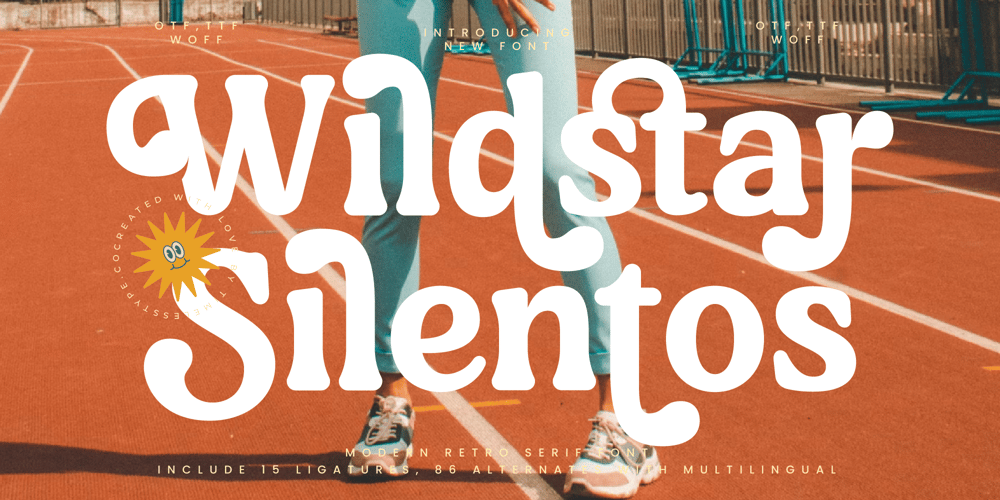
Wildstar Silentos
Wildstar Silentos font
Wildstar Silentos Font Family was designed by Heru Utama Putra and published by Timelesstype Studio. Wildstar Silentos contains 1 styles and family package options. Wildstar Silentos – Modern Retro Serif Font , from Timelesstype , Suitable for any projects such as: logos, branding projects, homeware designs, product packaging, mugs, quotes, posters, shopping bags, t-shirts, book covers, name card, invitation cards, greeting cards, label, photography, watermark, special events, and all your other luxury and beautiful projects that need a Luxury Serif taste.